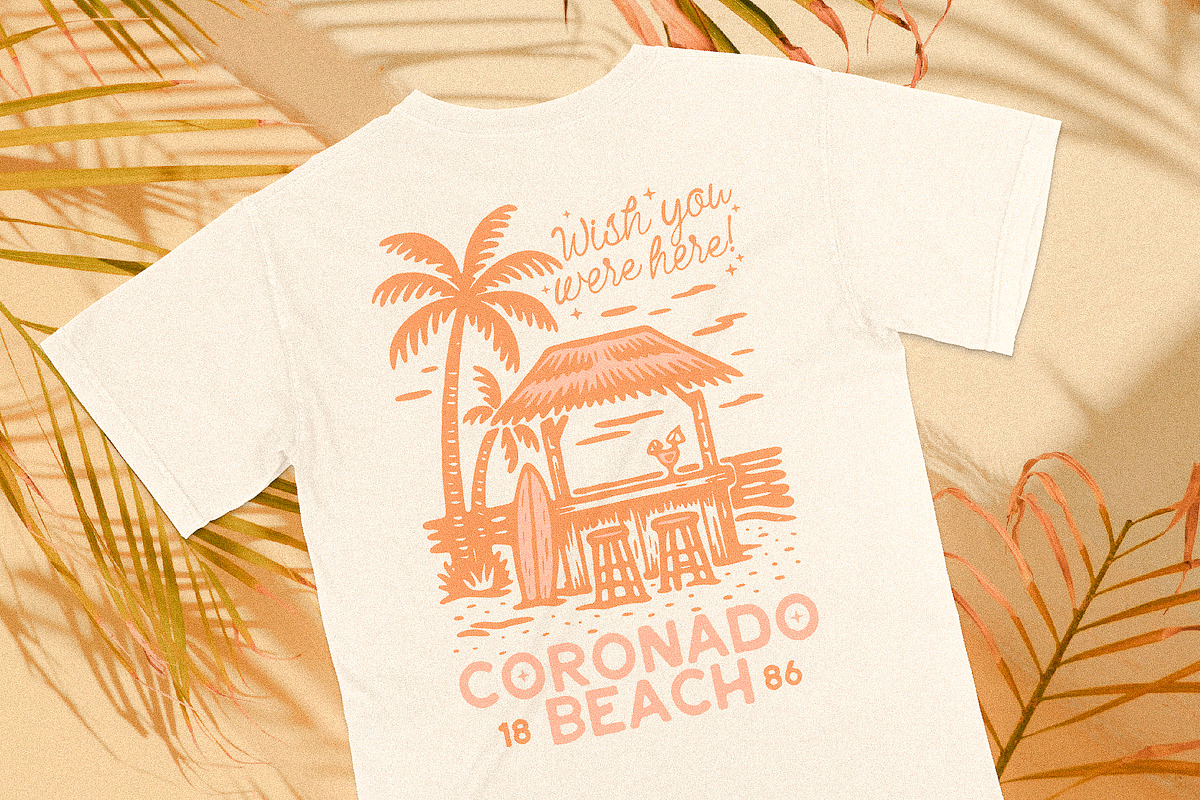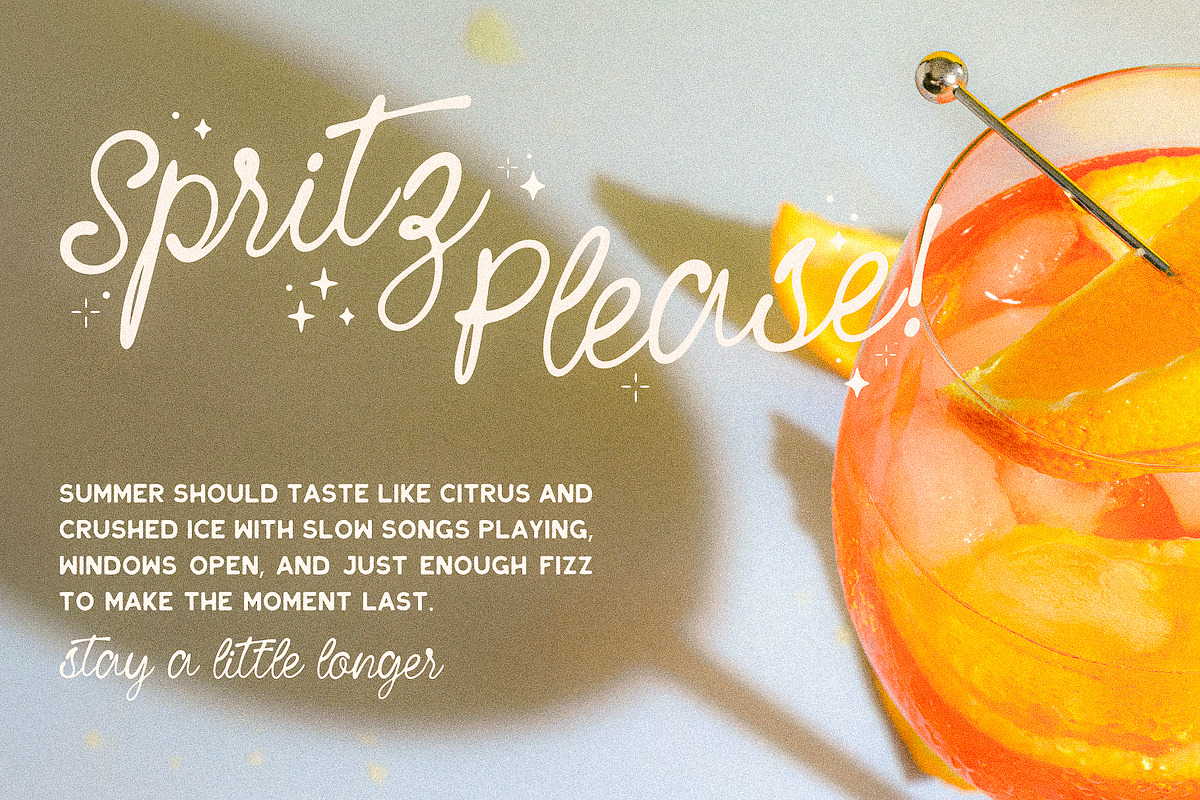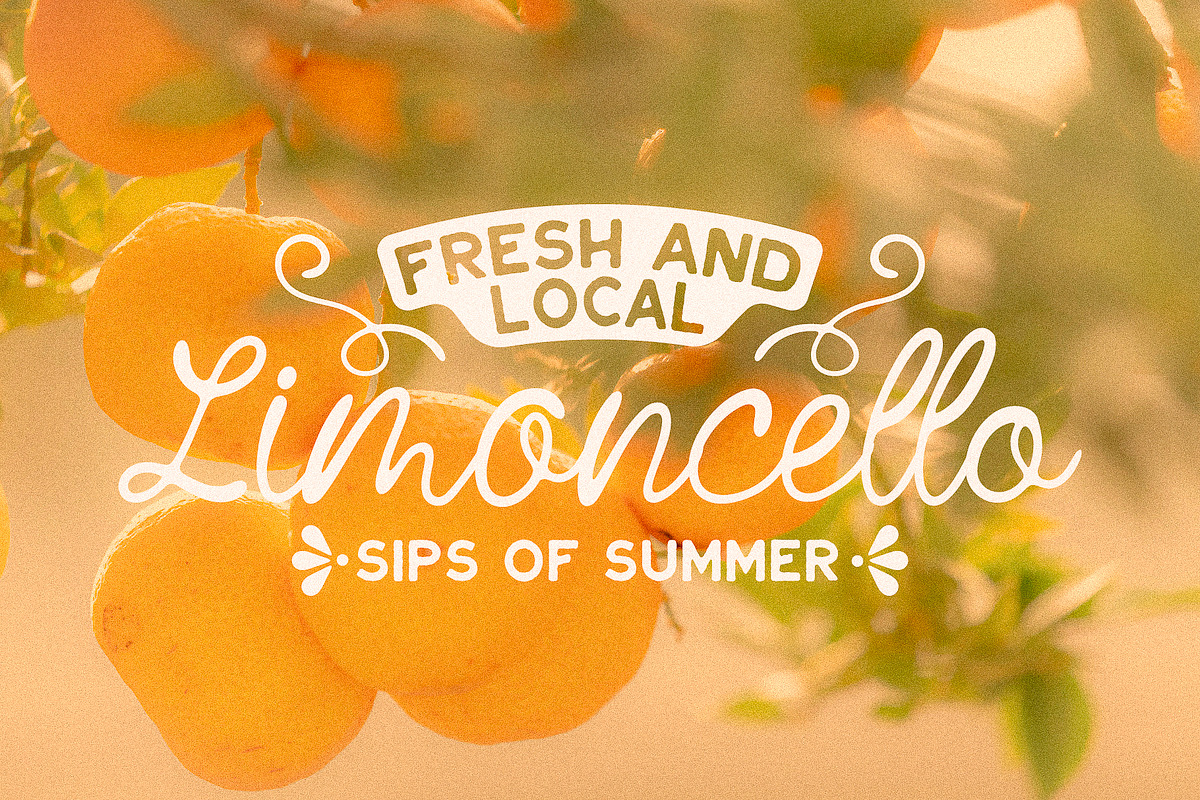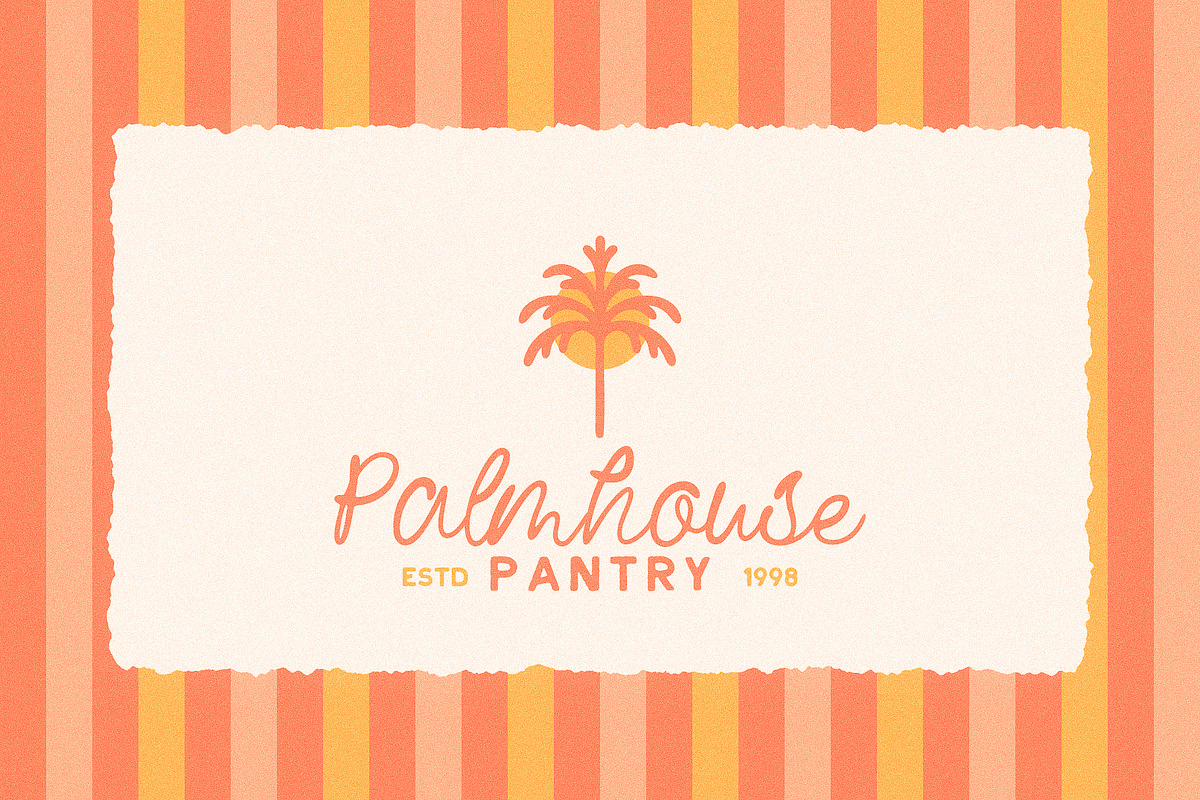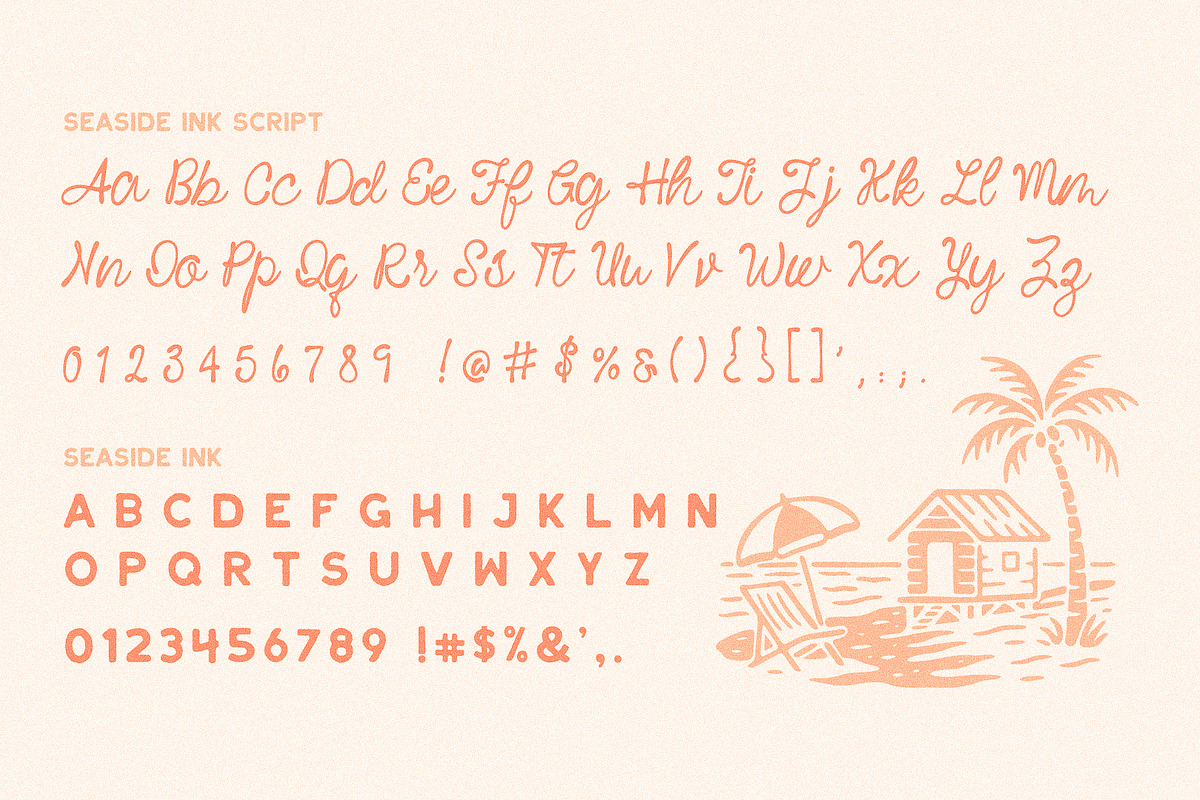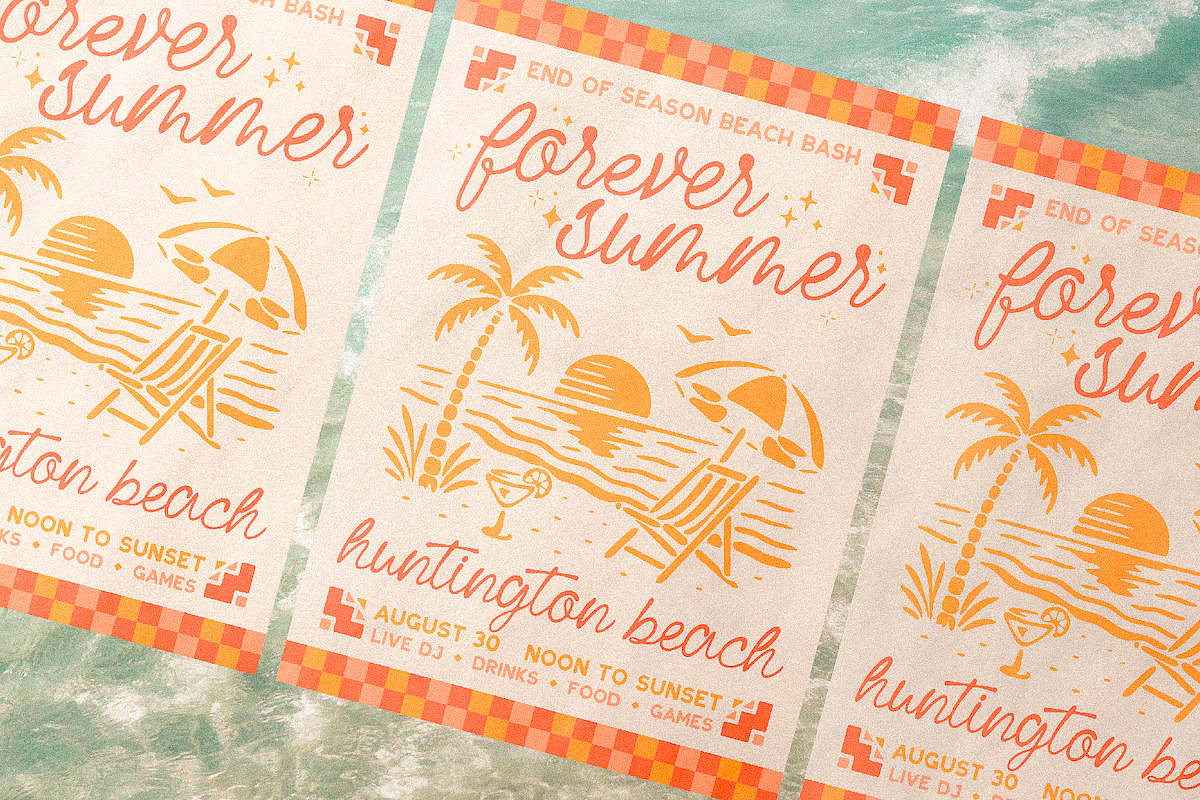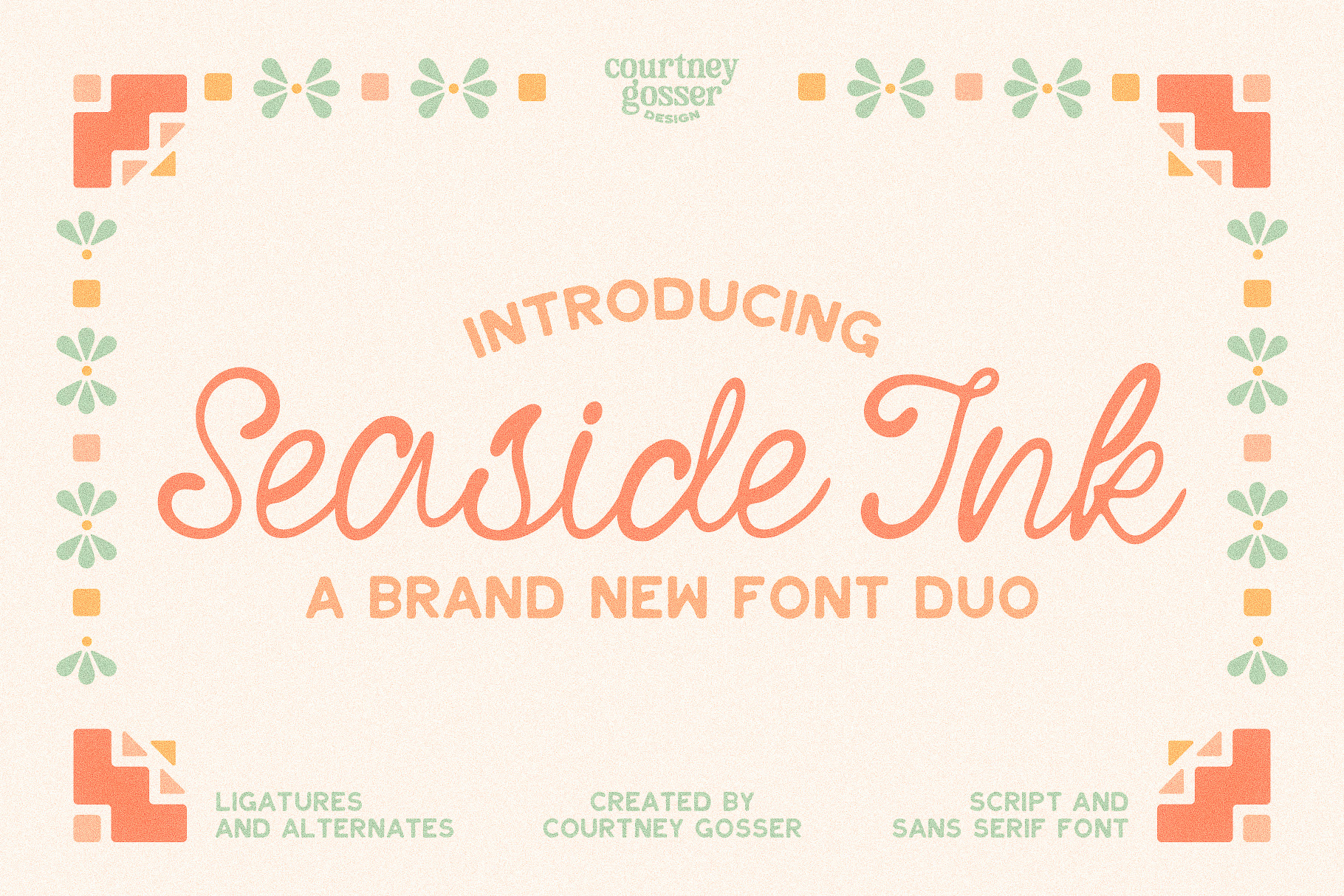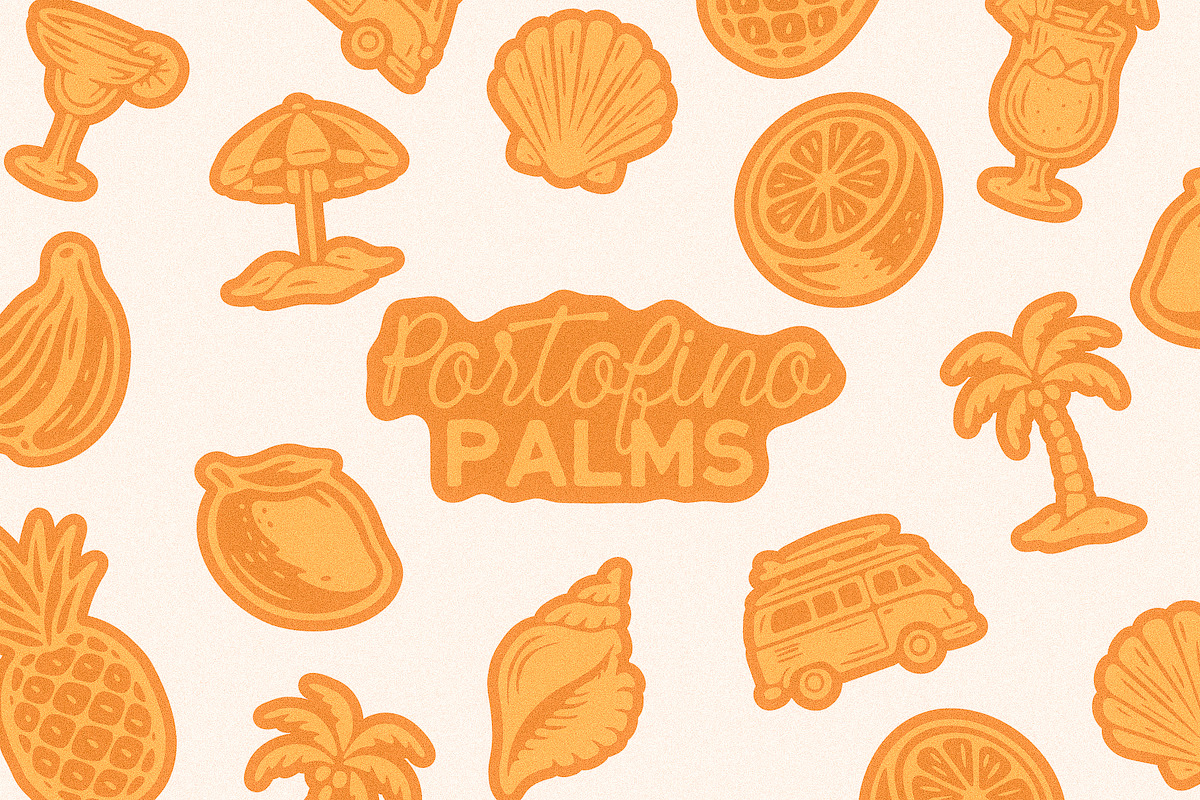
Seaside Ink · Display Font Duo
Meet Seaside Ink A playful and expressive handwritten font duo inspired by carefree summers, handwritten notes in the sand, and the salty breeze of coastal days. This dynamic pairing includes a spirited, organic script font full of personality and movement, perfectly complemented by a roughened sans-serif font that adds grounding charm with a subtle edge.
Together, these fonts were designed to bring a sense of whimsy and warmth to your creative work, ideal for brand design, packaging, social media graphics, and so much more. Whether you're looking to craft an effortlessly stylish logo or add handwritten flair to a digital layout, Seaside Ink brings both character and flexibility to your toolkit.
Every stroke and letterform has been carefully crafted to retain the ease and energy of hand-drawn type while ensuring usability and legibility across applications. Created with designers in mind, both fonts are fully accessible, easy to install, and compatible with your favorite design programs.
- Bonus Ligatures + Alternate Characters for Natural Handwriting Flow
- Full Uppercase & Lowercase Script Sets, Uppercase Sans Set, Numbers, & Punctuation